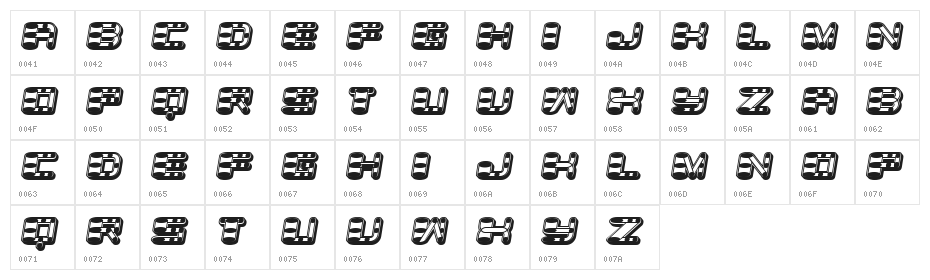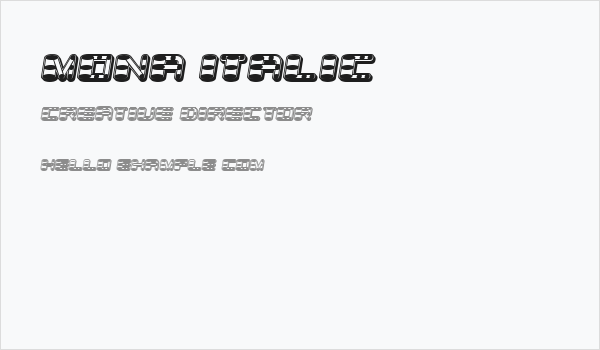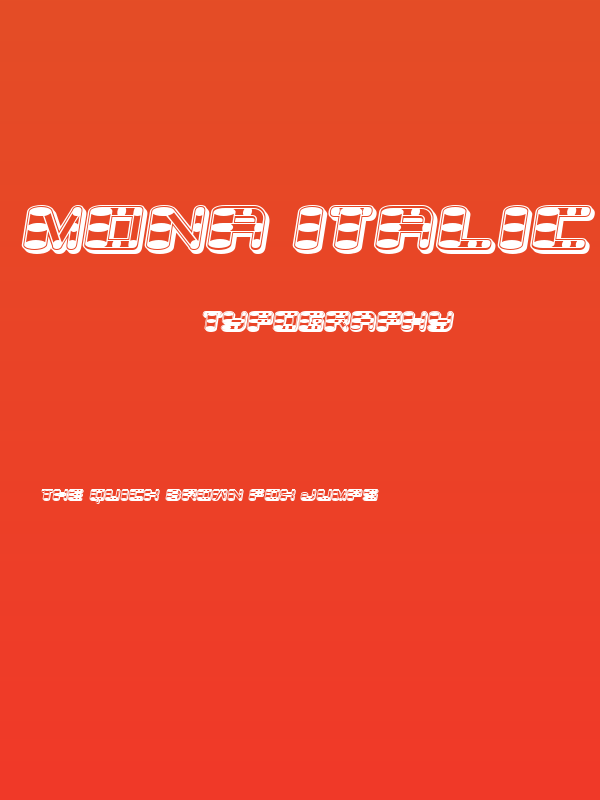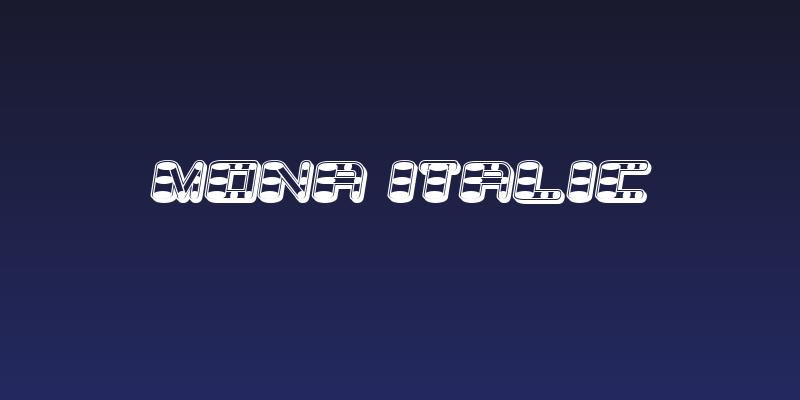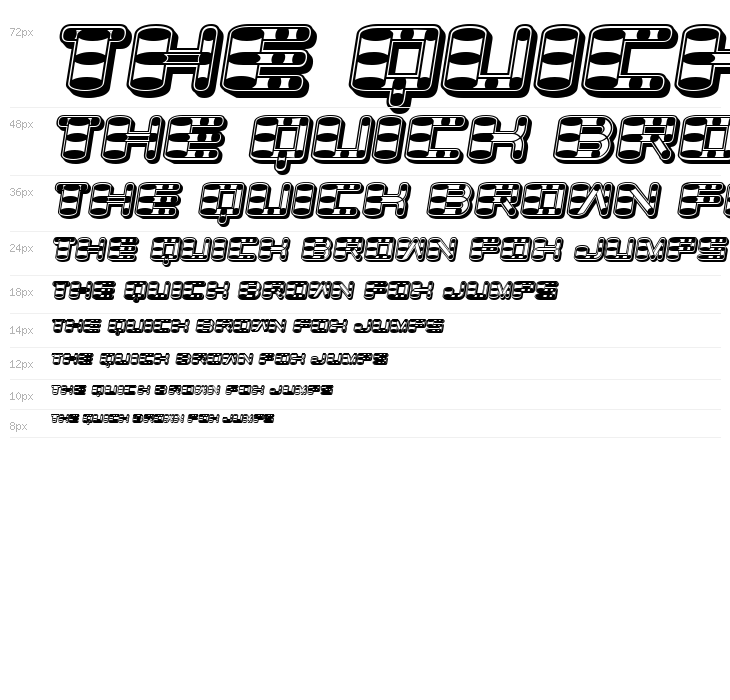
Mona Italic Font
Mona Italic Description
This font features a bold and decorative style with a unique pattern inside each character, resembling a checkerboard or striped design. The letters are uppercase and have a three-dimensional effect, giving them a sense of depth and movement. The strokes are thick and consistent, contributing to a strong visual impact. The overall design is playful and eye-catching, making it suitable for creative and dynamic projects. The font's distinct style is perfect for making statements in headlines or logos where a bold presence is needed.
| Proposed Projects | Ideal for use in headlines, posters, logos, and any design requiring a bold, eye-catching font. |